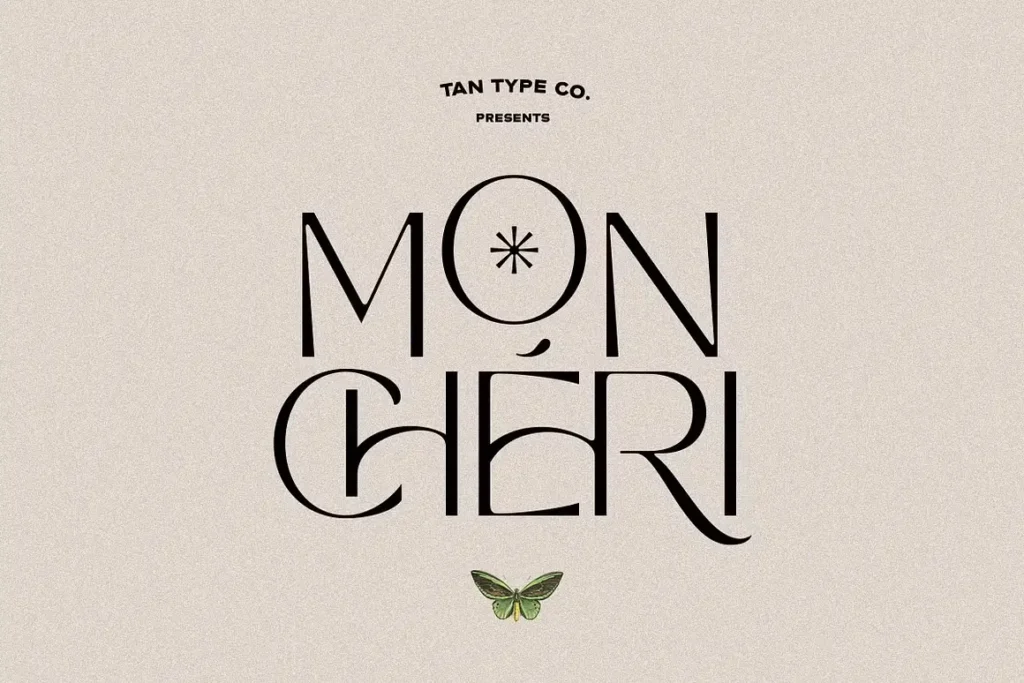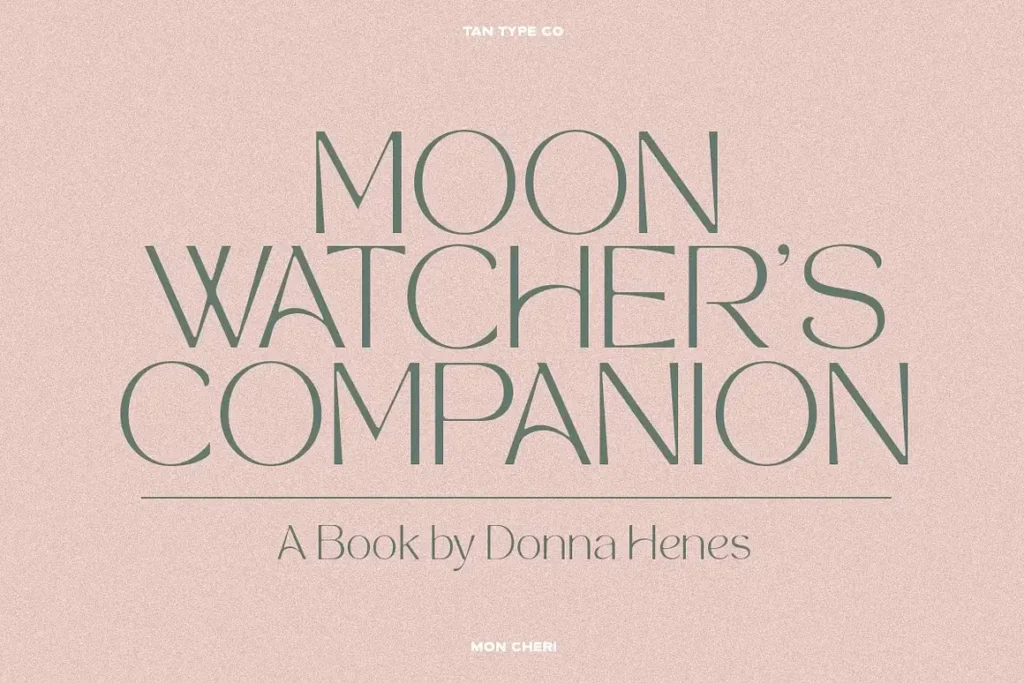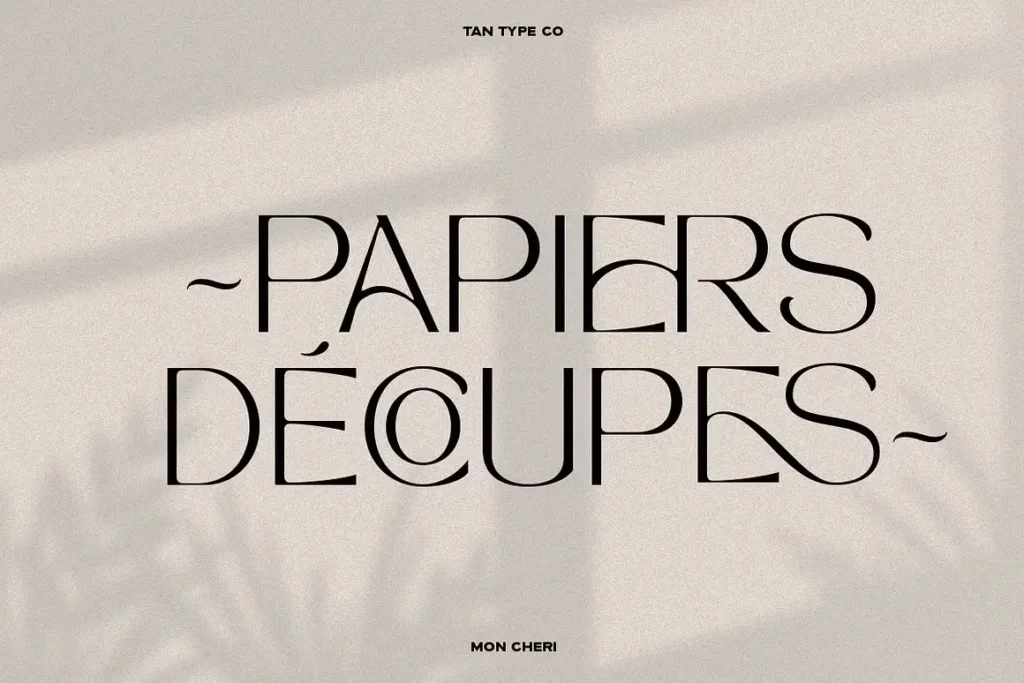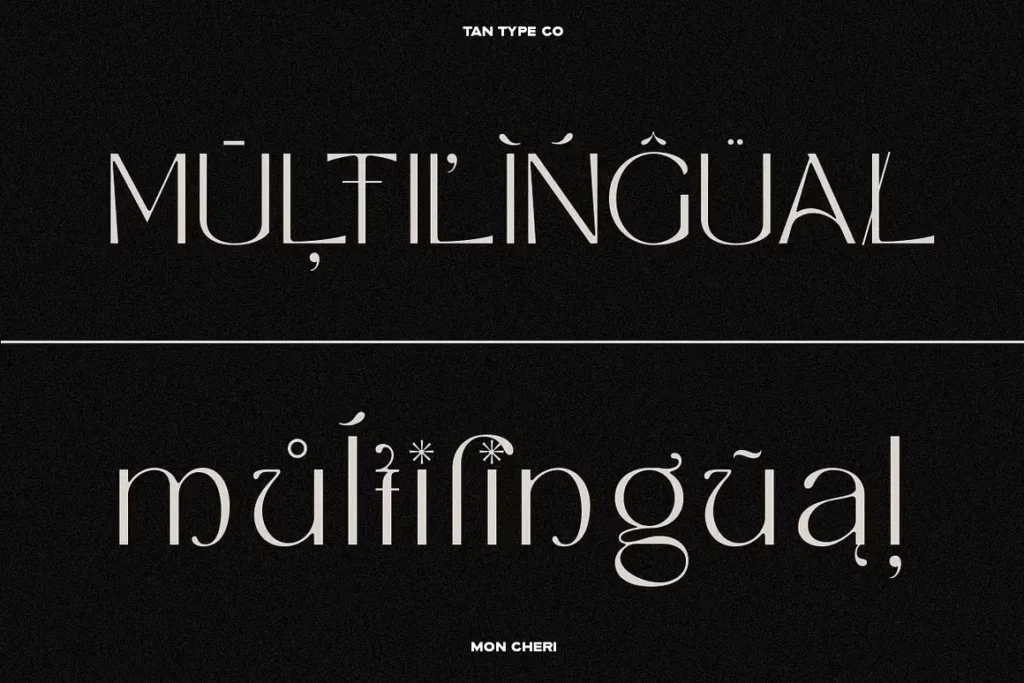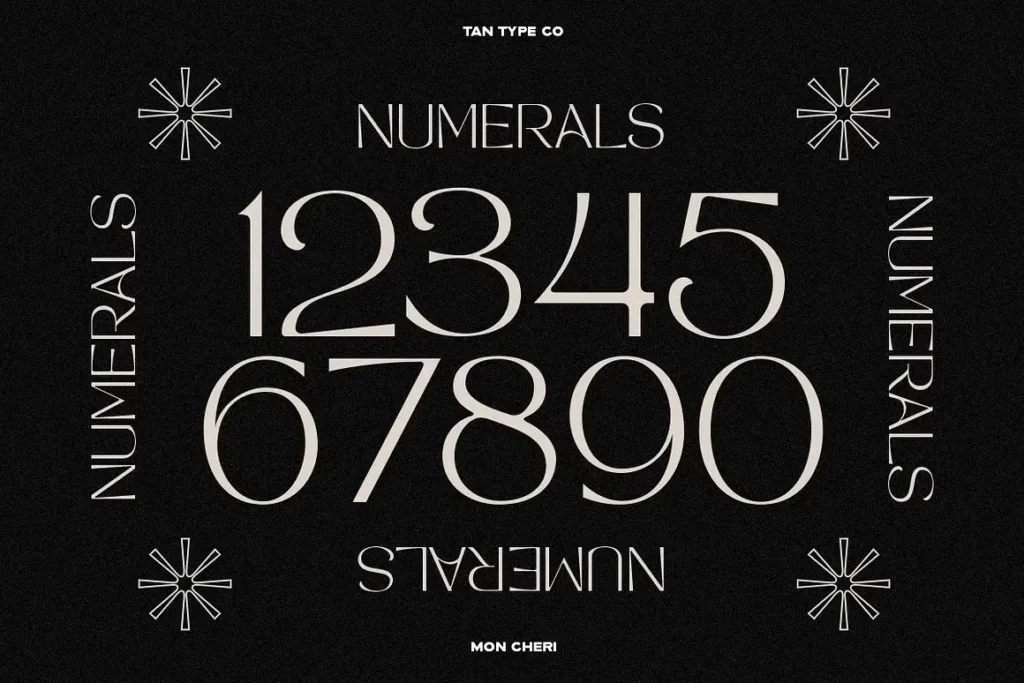
Tan Mon Cheri Font
I recently discovered the Tan Mon Cheri font while working on a luxury brand project. As a typography enthusiast and designer for over 10 years, finding the perfect font feels like striking gold! This elegant sans serif caught my eye immediately with its clean lines and subtle character.
I’ve used Tan Mon Cheri in three recent projects – a hotel logo, wedding invitation suite, and jewelry brand identity. Each client loved how this font elevated their visuals without trying too hard. If you’re looking for something between basic sans-serif options and flashy script fonts, this review might help you decide if Tan is worth adding to your collection.
About the Typography and Designer
Tan Mon Cheri is an elegant sans created by TanType design studio. The font stands out from typical modern sans serif options by combining simplicity with unexpected playful elements. Mon Cheri is a modern sans that maintains perfect readability while adding just enough visual interest to make designs pop.
TanType has crafted something special here, drawing inspiration from vintage 60s font and 70s font styles but updating them for modern design needs. The result feels both timeless and fresh – not quite retro font territory, but with subtle nods to typography history. Unlike similar free options you might find, this premium font shows careful attention to letter spacing, weight balance, and character design.
What impressed me most about Mon Cheri font details is how versatile it feels across different sizes and applications. The feminine touches aren’t overwhelming, making it appropriate for both luxury brands and everyday design projects. While plenty of fonts for Canva and other platforms try to achieve this balance, few manage it with such refinement.
Features of this Elegant Font
One standout feature is its multilingual support, perfect for brands with global reach. To access the alternate letters, make sure the software you are using can support OpenType features. These alternate characters add creative options without needing to switch to another font.
While primarily a sans-serif font, Tan Mon Cheri incorporates subtle details that distinguish it from generic options. The letter shapes maintain clean lines while adding just enough personality – a balance that works beautifully for both digital and print applications. The font doesn’t try to mimic handwritten script fonts or cursive fonts, instead carving its own unique identity.
Where Can You Use This Sans Serif Font?
Tan Mon Cheri shines in branding projects where classy font choices matter. It pairs beautifully with both serif typefaces for contrast and script fonts for added elegance in font pairing situations.
For wedding stationery, this font creates modern yet timeless designs. The bohemian fonts trend may come and go, but Tan’s understated elegance photographs beautifully on invitations, programs, and name cards without feeling dated.
Logo design is where this font truly excels. Its distinctive character makes brands instantly recognizable whether for feminine product lines or more neutral commercial use. I’ve seen it work wonderfully for fashion, beauty, and lifestyle brands seeking sophisticated visual identity without resorting to generic luxury typefaces.
Digital designers will appreciate how well it renders on screens across personal computer systems, Mac, Linux, and even Android. Unlike some premium fonts that lose detail online, Tan maintains its elegance across websites and social media graphics.
Restaurant menus, packaging design, and creative editorial projects also benefit from this versatile typeface. It pairs beautifully with vintage font aesthetics or minimalist modern layouts. The font adapts remarkably well whether your project needs groovy retro style elements or clean contemporary design.